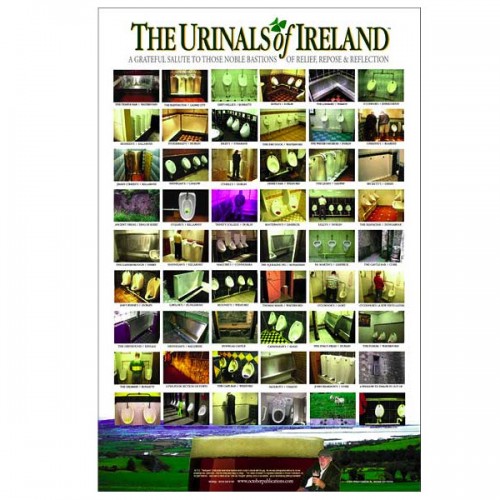
The Pubs of Ireland
For all you Pub Lovers out there...these just might be the posters for you....Cheers!
Mind your drinking (P's and Q's) or you might see some of those porcelain mugs in "MACRO". Haha
Off to Dublin and I just returned from a few days there. Make sure you get to Ryans Pub. An excellent restaurant upstairs and lots of eye candy down.....not to mention that they also have something other than Guinness on tap.
Without a photo it's hard to know if this is the same place. It has a carved stone sign and lots of millwork. A few old glass pieces as well.